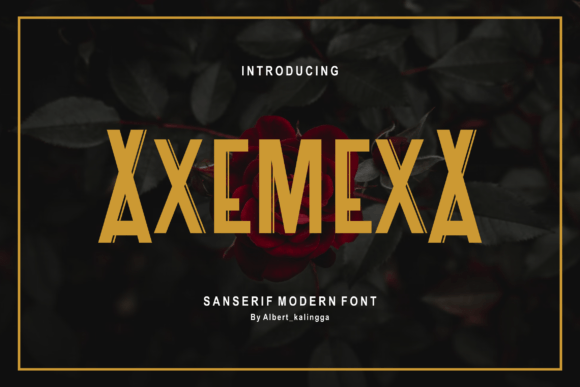
Journey into the realm of minimalist aesthetics with the Axemexa Font, a captivating sans serif masterpiece meticulously crafted by kalingga.albert. As a minimalist logo font, Axemexa exudes elegance and a modern flair, promising to elevate your designs to new heights.
Unleash your creativity and let Axemexa's clean and crisp lines bring a touch of sophistication to your book covers, magazines, social media posts, invitations, and a myriad of other design projects. Its understated beauty allows your content to take center stage, while the font's subtle presence adds a layer of visual intrigue.
Axemexa's versatility knows no bounds. Whether you seek a font for branding, web design, or crafting eye-catching social media graphics, Axemexa rises to the occasion effortlessly. Its minimalist charm seamlessly complements various design styles, allowing you to create cohesive and visually appealing projects.
Embrace the power of simplicity with Axemexa, a font that speaks volumes through its understated elegance. Its minimalist aesthetic resonates with modern sensibilities, ensuring your designs remain timeless and relevant. Experience the transformative power of Axemexa and unlock a world of minimalist design possibilities.
Immerse yourself in the world of Axemexa and let its minimalist magic transform your creative visions into stunning realities. Download Axemexa today and embark on a journey of design excellence!